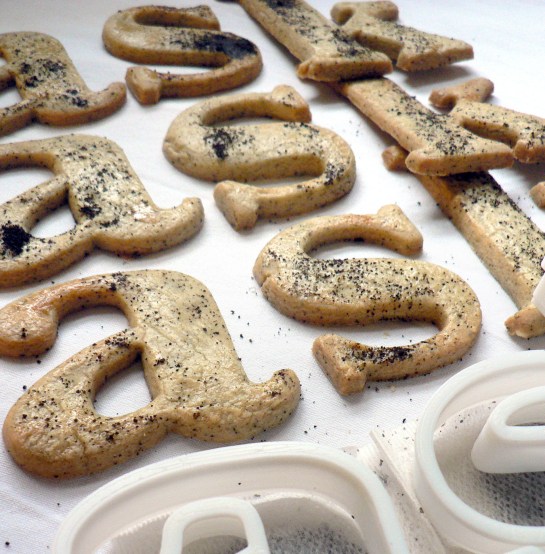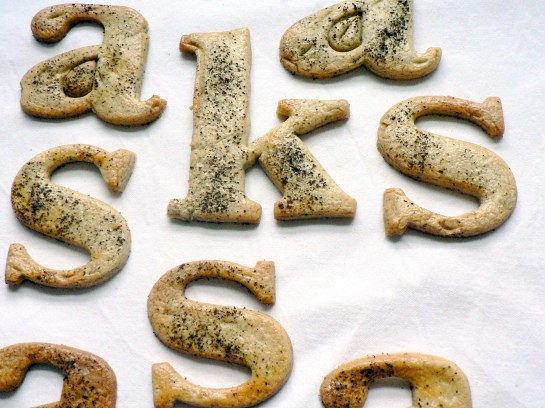
Baskerville Earl Grey tea biscuits recipe
Edible typography
Using food to describe the experience of typography
Baskerville is a transitional serif typeface that sits between the old style serif typefaces of William Caslon and the modern serifs created by Giambattista Bodoni & Firmin Didot. English printer and type designer John Baskerville developed a typeface with more defined angles and greater stroke contrast. This was a refined face with improved legibility which also took advantage of the improvements in technology happening in the 1750s. Baskerville is a recognisably English typeface that has stood the test of time as a legible, everyday text face.
My interpretation of Baskerville are Earl Grey tea biscuits for an authentic eighteenth century flavour. At this time improved technology and transport allowed foods to be enjoyed throughout the country. Tea had become the national drink and the tea leaves would be dried, rolled and used again. I had initially thought that Baskerville should be savoury, since it’s an everyday ‘jobbing’ typeface, but sweet biscuits tasted better.
Recipe
Ingredients
200g butter
200g caster sugar
2 tsp finely ground Earl Grey tea leaves (use decaffinated tea for less of a caffeine hit)
1 large free-range egg, lightly beaten
400g plain flour
Preheat the oven to 175C/350F/Gas 4, prepare baking trays by greasing them and lining with non stick baking paper.
Either use Baskerville biscuit cutters, or print out your letters at actual size and cut them out to create templates.
- 1. Cream the butter and sugar with the finely ground tea using a wooden spoon. Add the egg and beat until combined. Add the flour and mix until the mixture forms a dough.
- 2. Gather the dough into a ball, wrap it in cling film and chill in the fridge for an hour.
- 3. Roll out the dough on a floured work surface to approx 0.5cm thick.
- 4. Cut out your biscuits either using the biscuit cutters or templates you prepared earlier.
- 5. Place on a greased and lined baking tray. Wash with beaten egg and sprinkle with tea.
- 6. Bake for about 8 minutes until golden brown. Place on a wire rack to cool.
Baskerville is a transitional serif designed in England in the 1750s by John Baskerville.